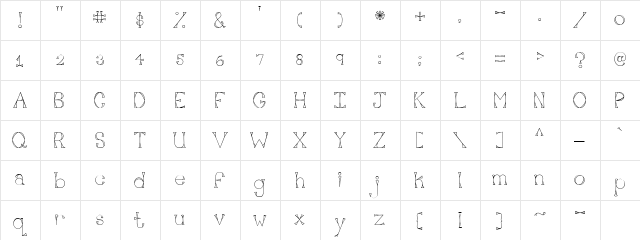
CK Cool Serif Regular
Design Context for CK Cool Serif Typeface
CK Cool Serif carries the refined structure of traditional serif typography, with bracketed terminals and considered proportions that communicate credibility and craft.
Pro Tip: Set CK Cool Serif with slightly loose tracking in headlines to let each letterform's detail read clearly at display sizes.